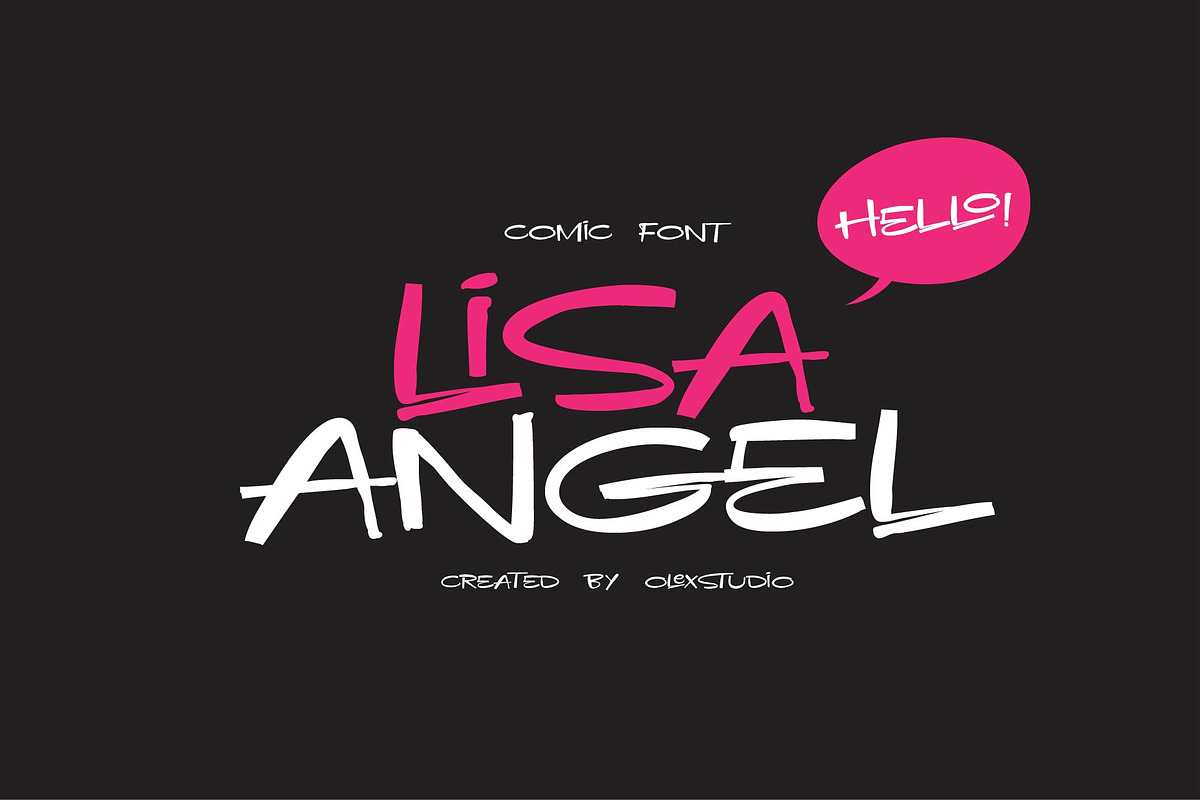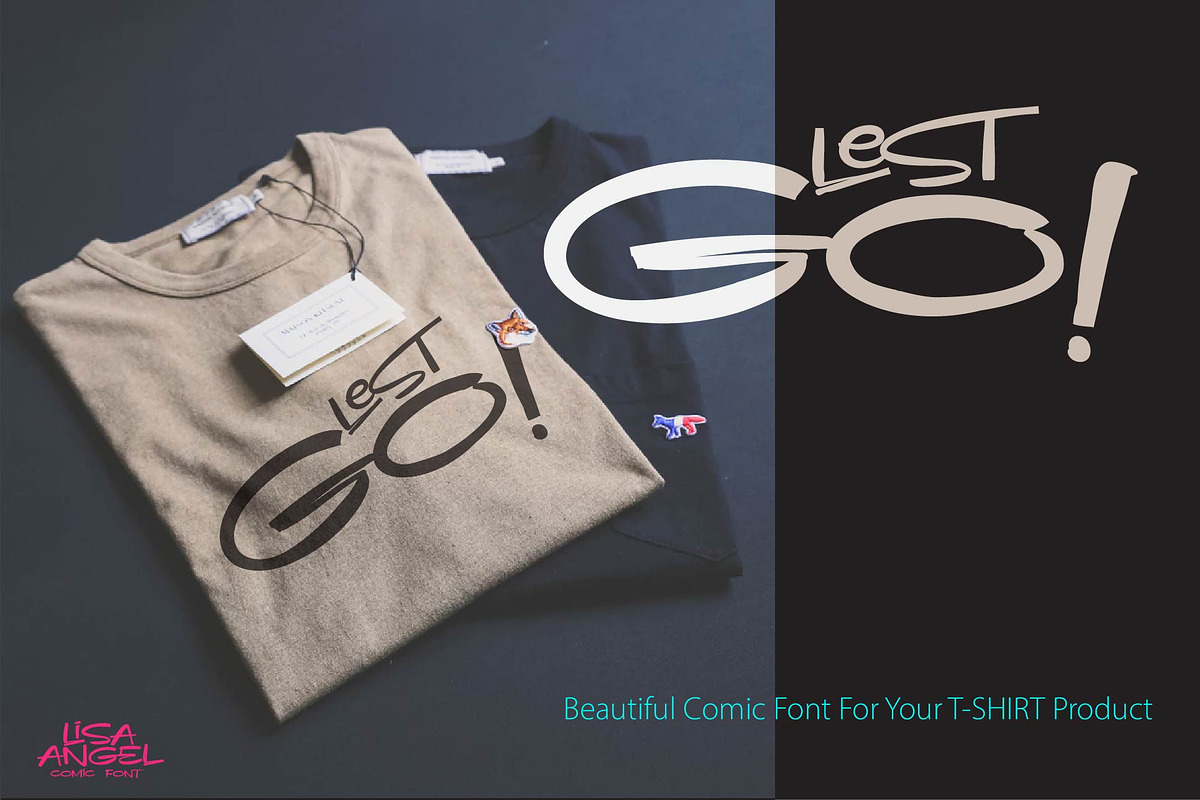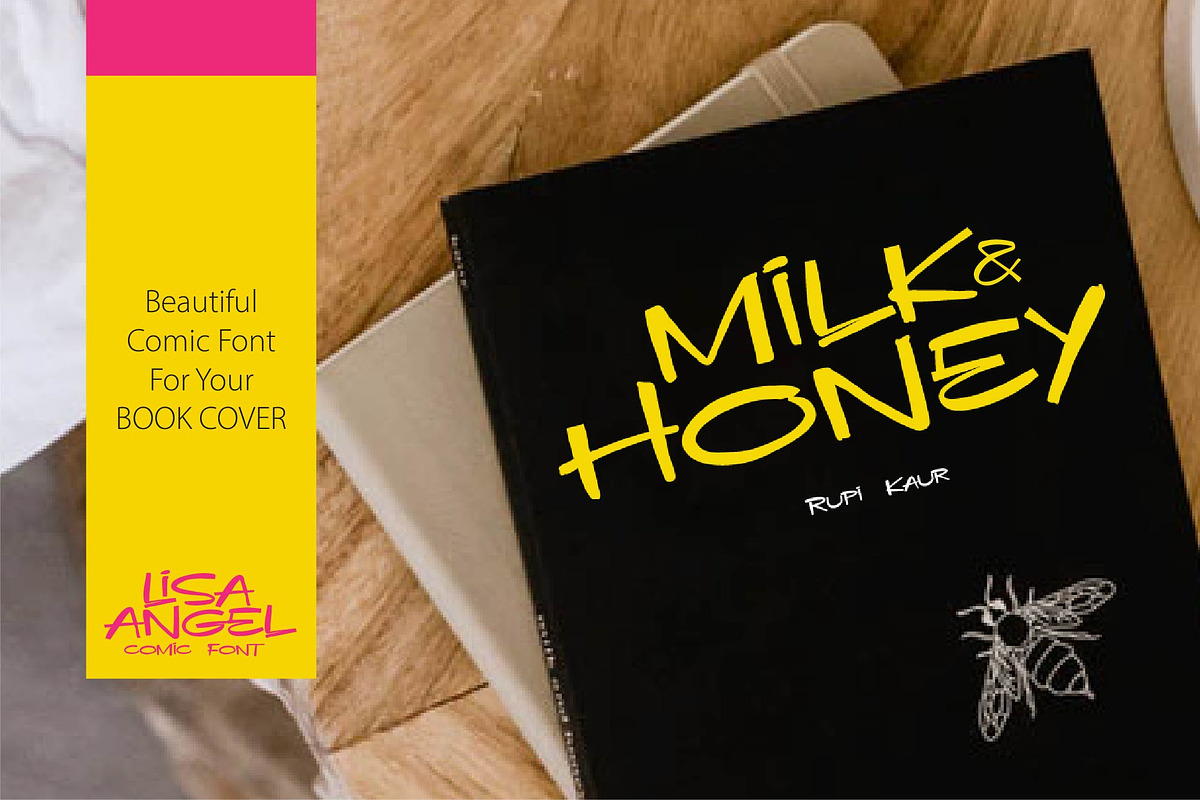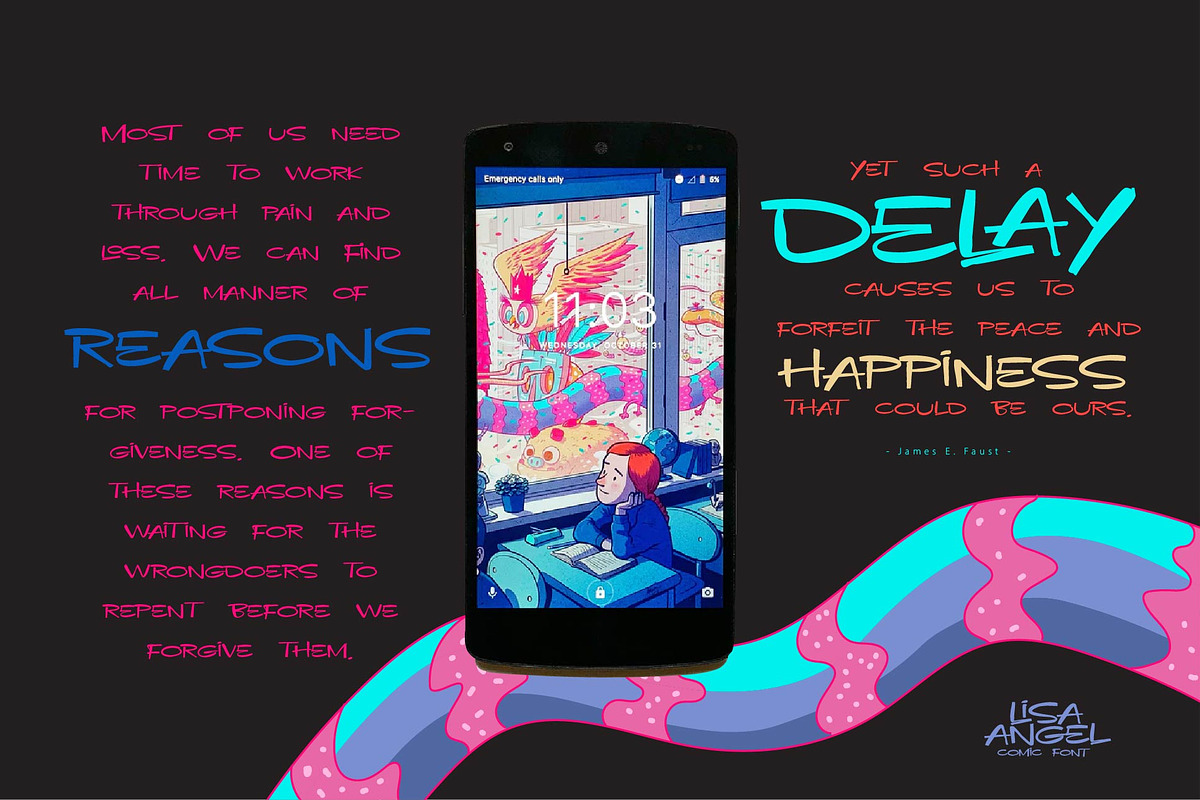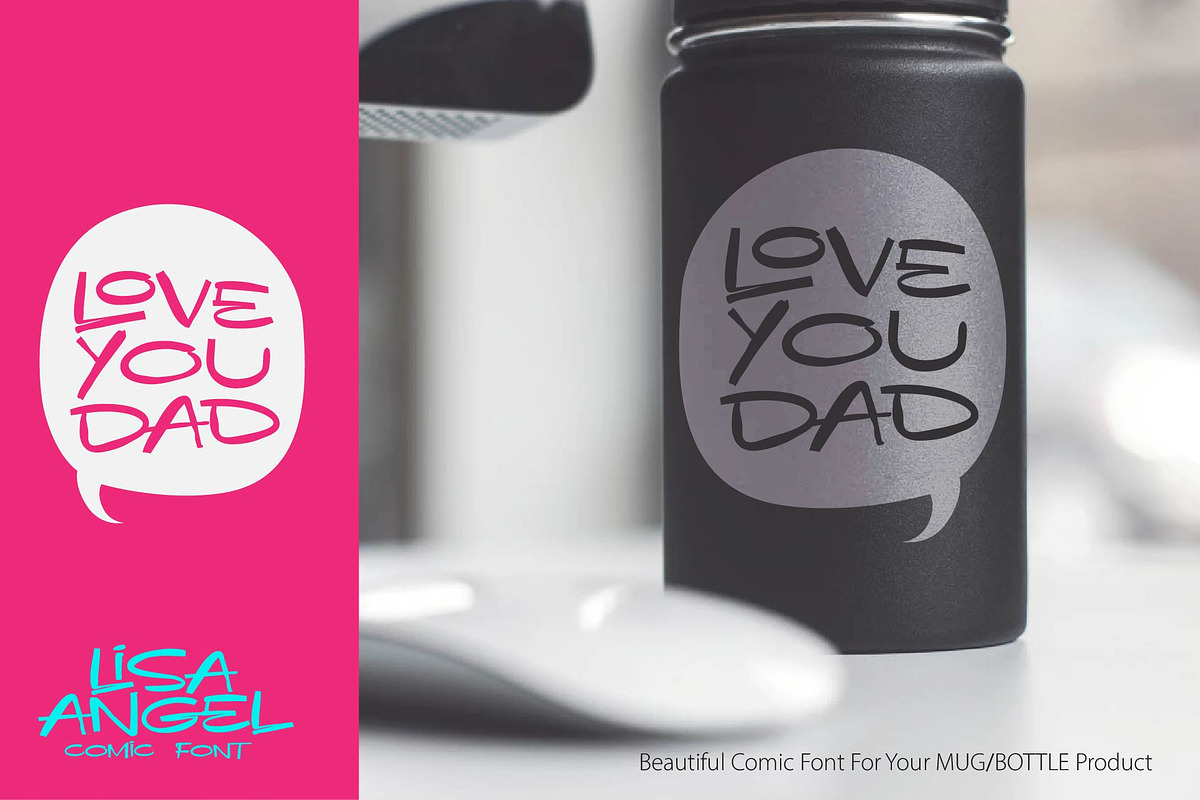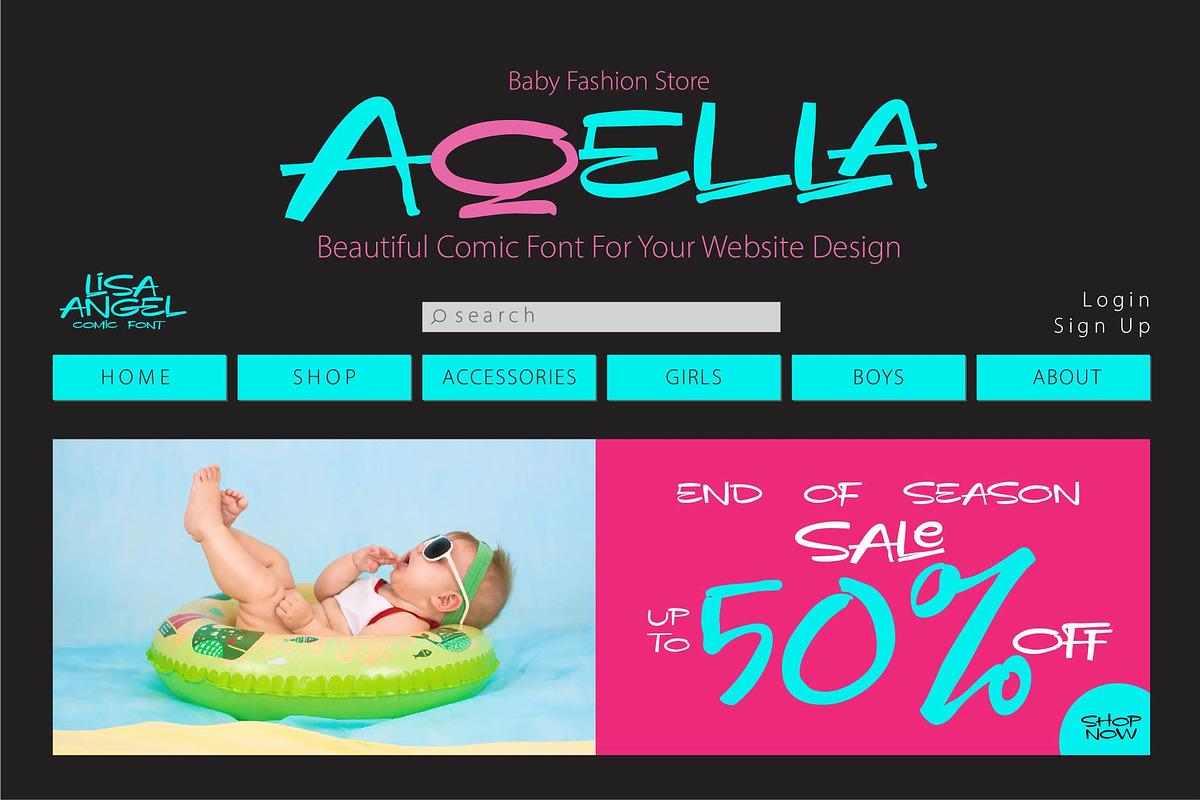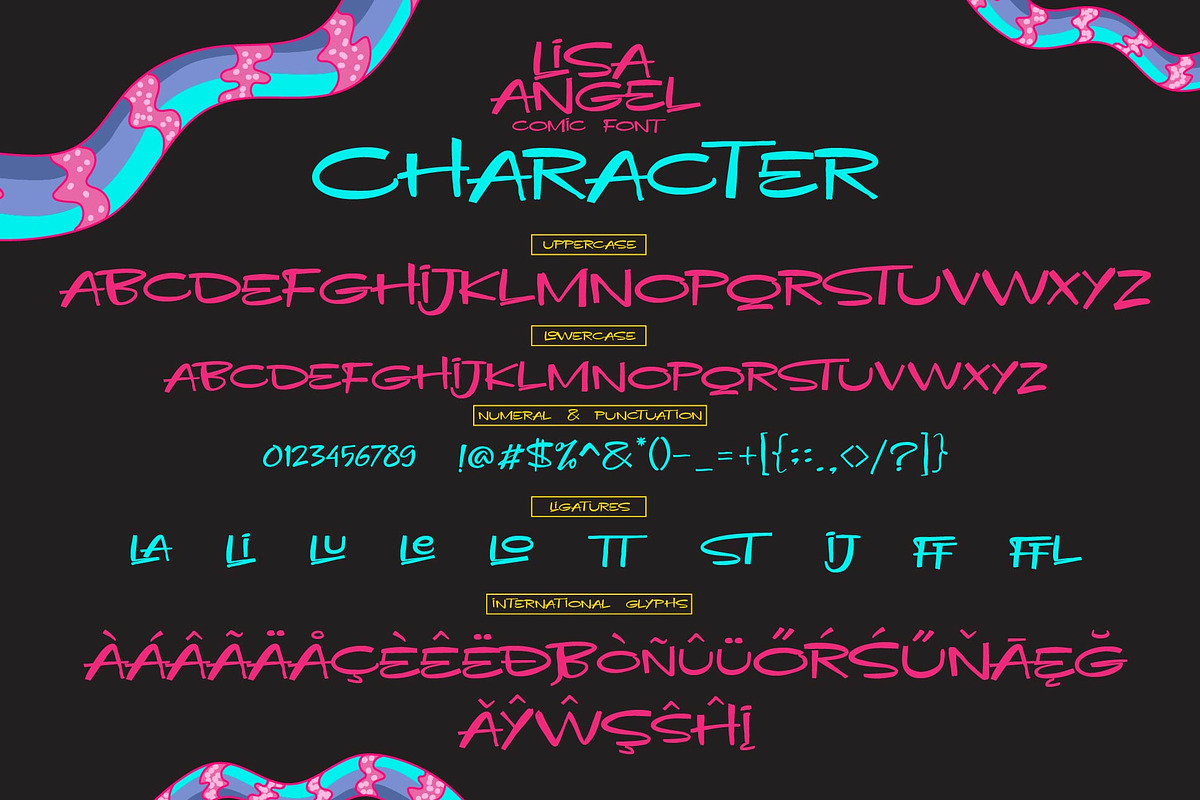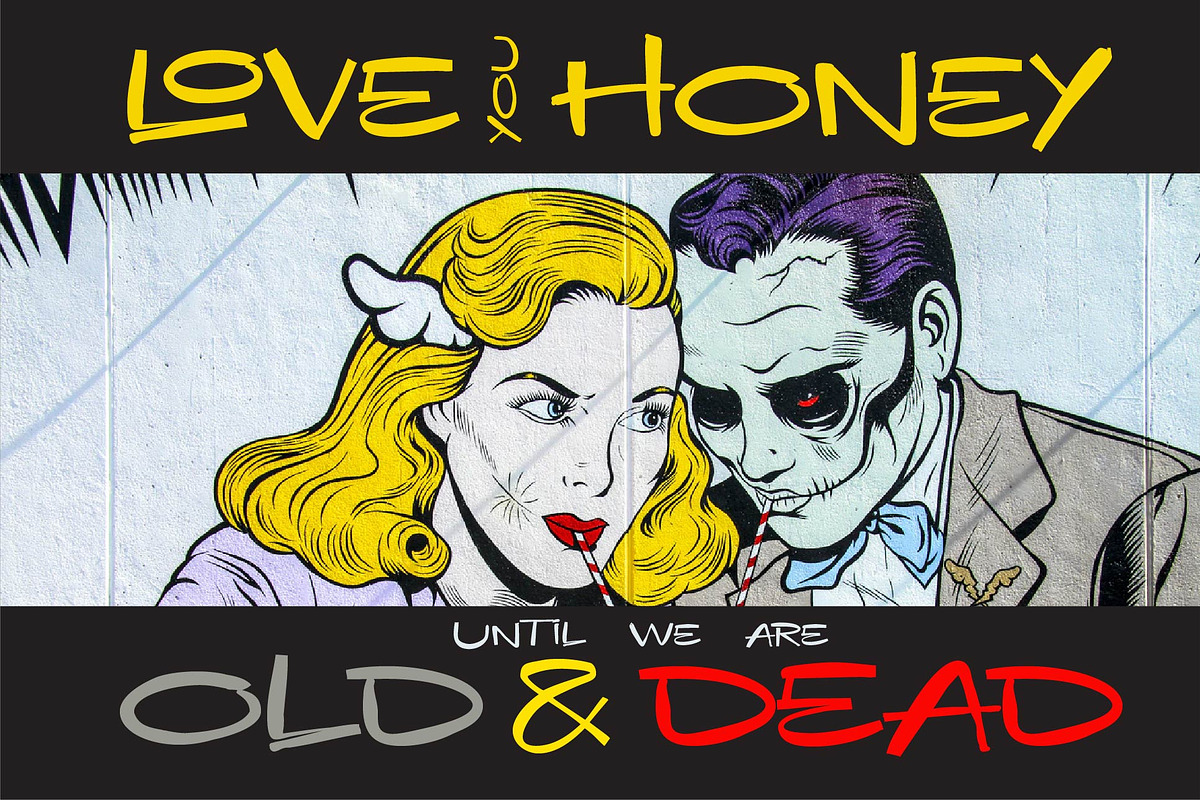
LISA ANGEL comic font
LISA ANGEL - comic font
LISA ANGEL - comic font is a beautiful Display comic font Typeface, This Font will look gorgeous on all your designs, book, branding materials, logo's, t-shirt, poster, baby fashion product, comic, quotes and all project design other.
LISA ANGEL - comic font contains standard characters, lowercase, Uppercase, numbers, punctuation, ligatures and international glyphs.You will receive OTF, TTF and WEBFONT files.
Why LISA ANGEL comic font is worth a look
LISA ANGEL comic font by Olexstudio fits naturally into Branding, posters, packaging, typography.